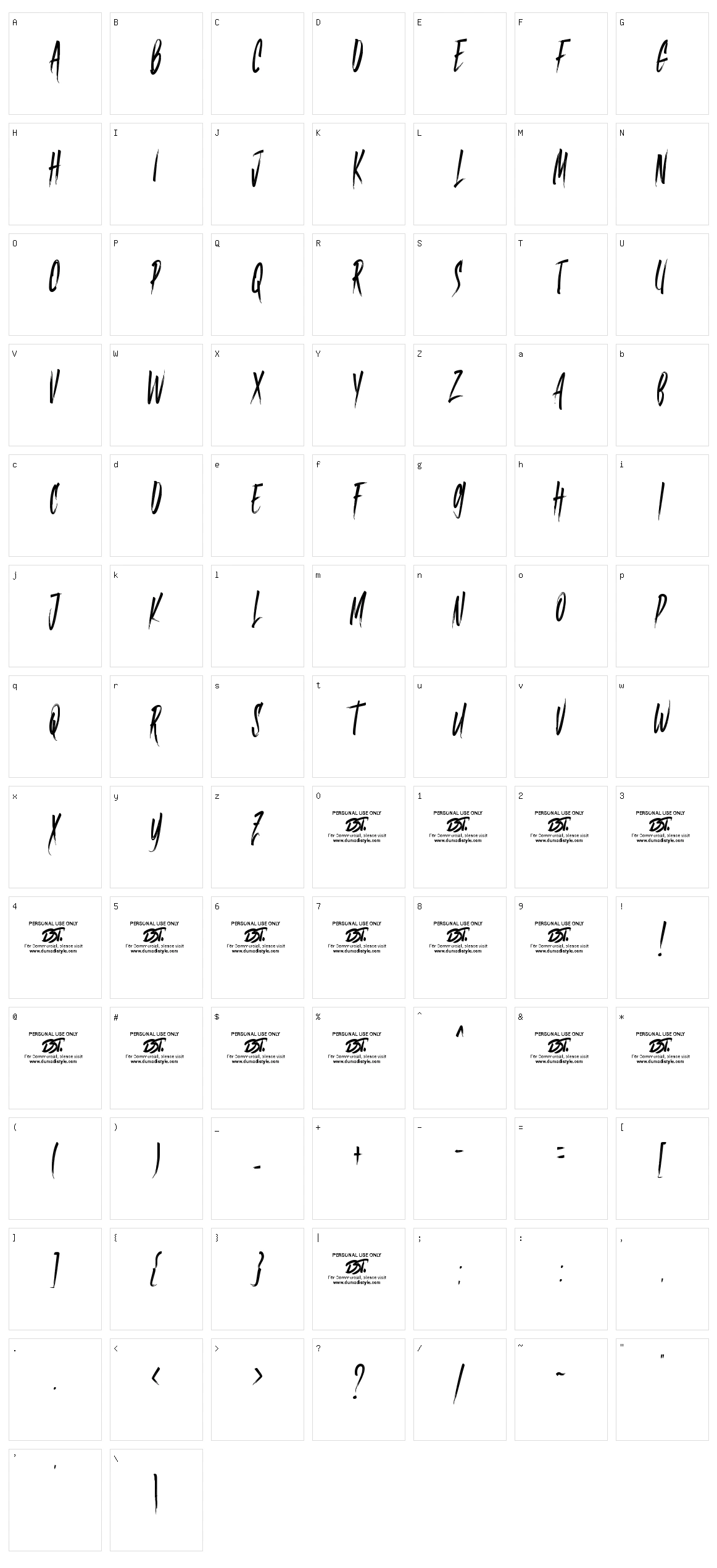
The free font Black Memory is carefully designed by DumadiStyle, showcasing a thoughtful balance of creativity and usability and falls under the Horror font style. When you download the ZIP file, it contains only 1445.65 KB of font files, making it lightweight and quick to download. Please review the license details below to understand permitted usage and distribution rights. If license information is not available, we recommend using this font for personal projects only or contacting the author directly for commercial usage permissions.